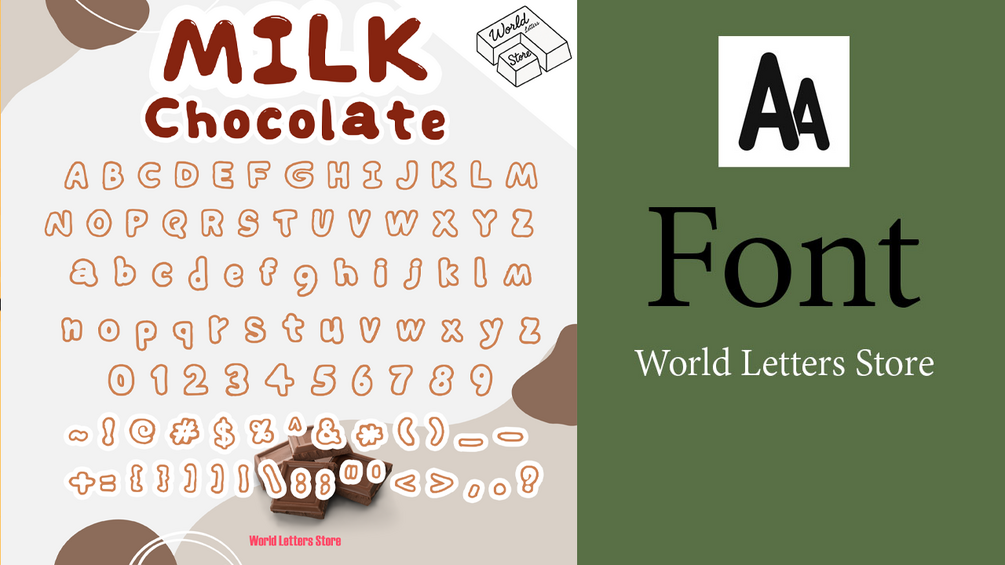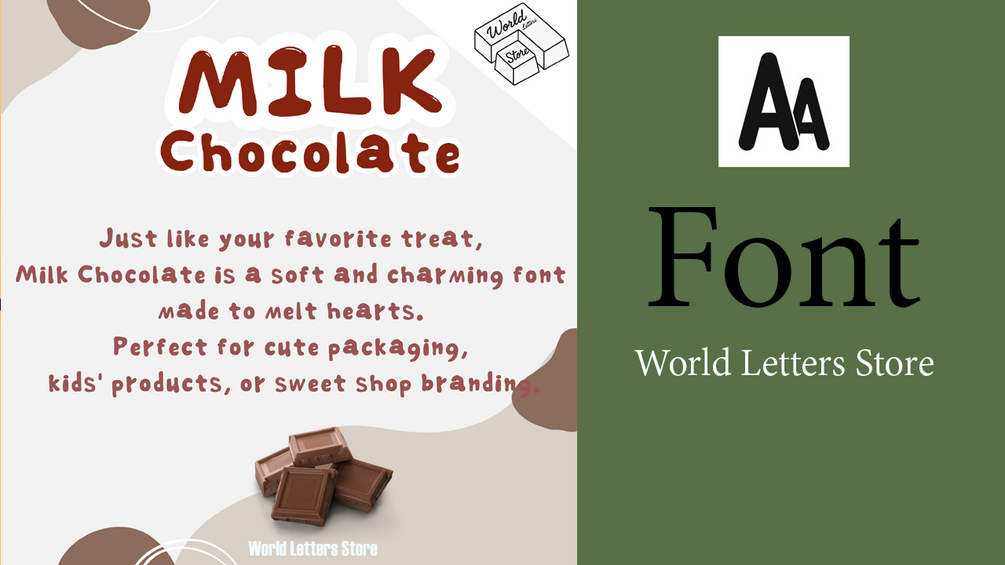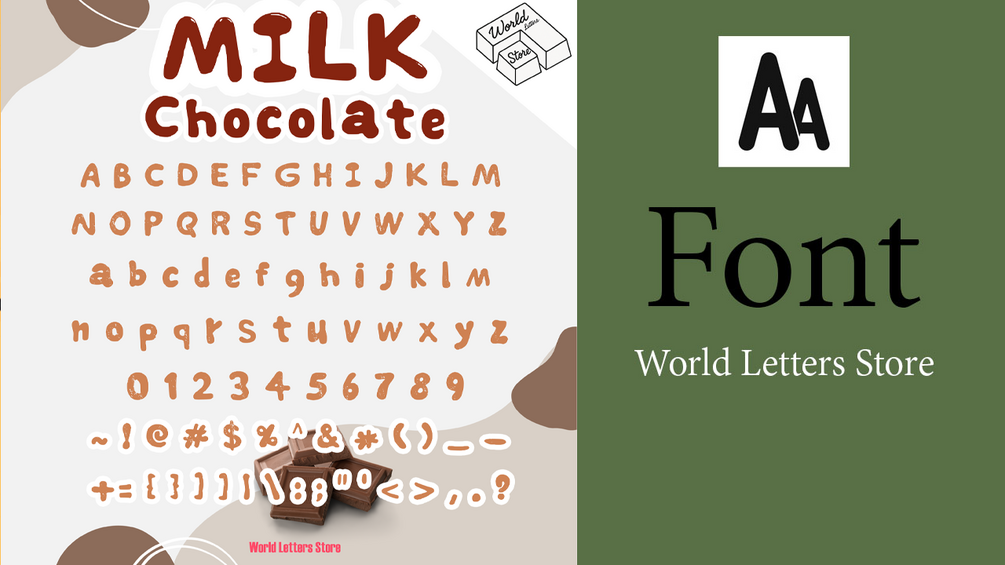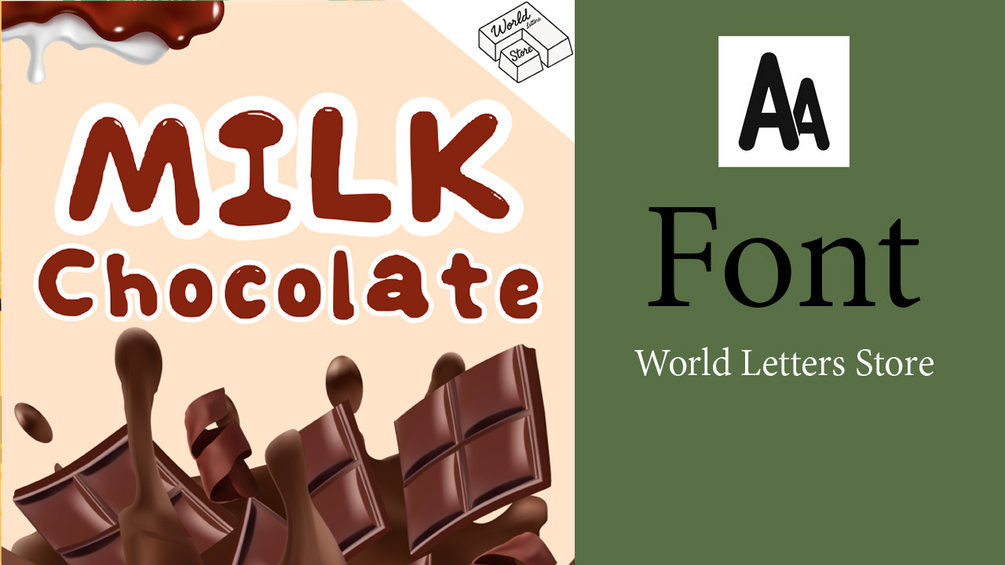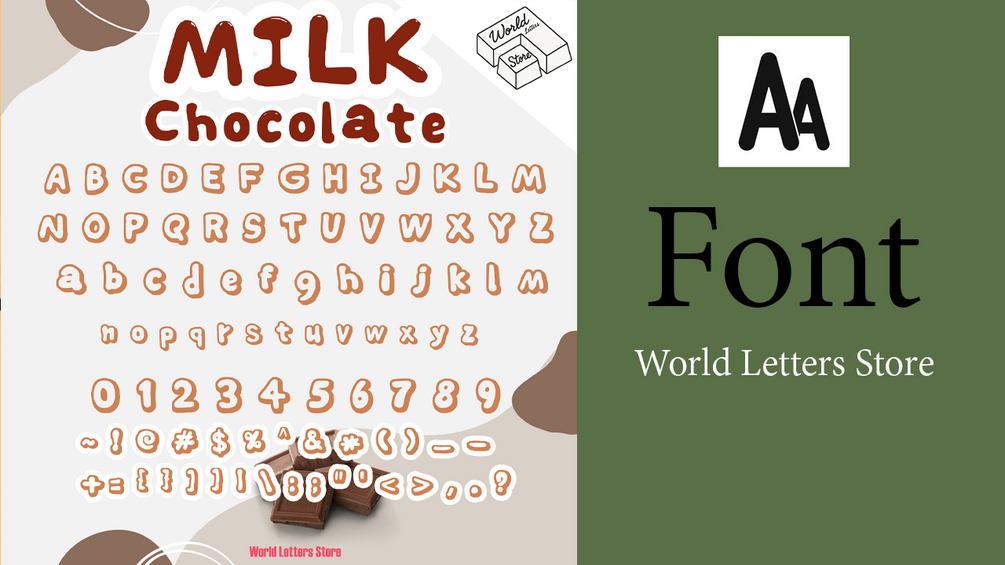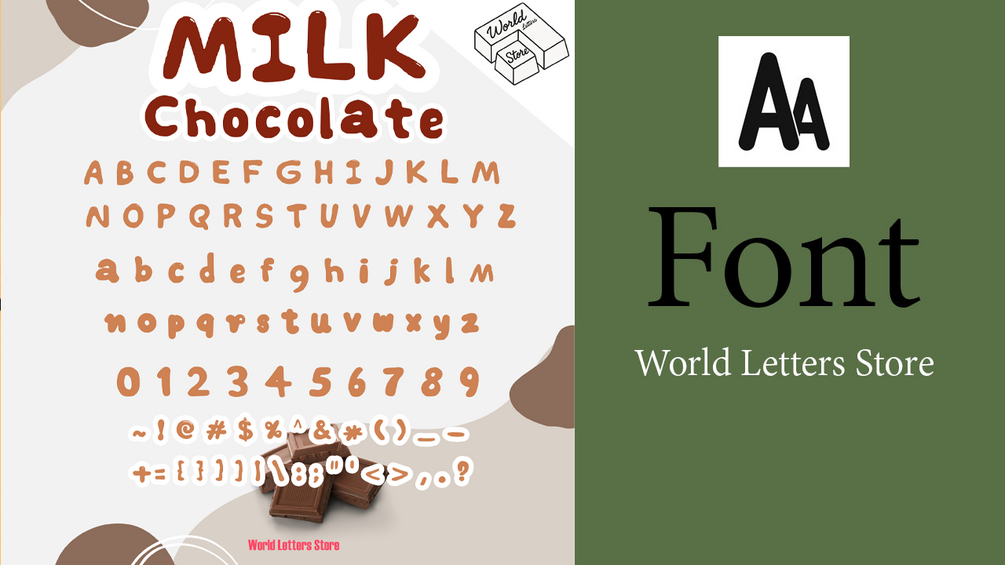
Milk Chocolate Font | Bubble Font | Shiny Font | Cute Fonts | Milk Chocolate Font | Retro Font | kawaii Letters (OTF/TTF)
Milk Chocolate Font | Bubble Font | Shiny Font | Cute Fonts | Milk Chocolate Font | Retro Font | Fonts for Procreate | Fonts for iPad | kawaii Letters (OTF/TTF)
Perfect for planners, logos, stickers, quotes, and digital products.